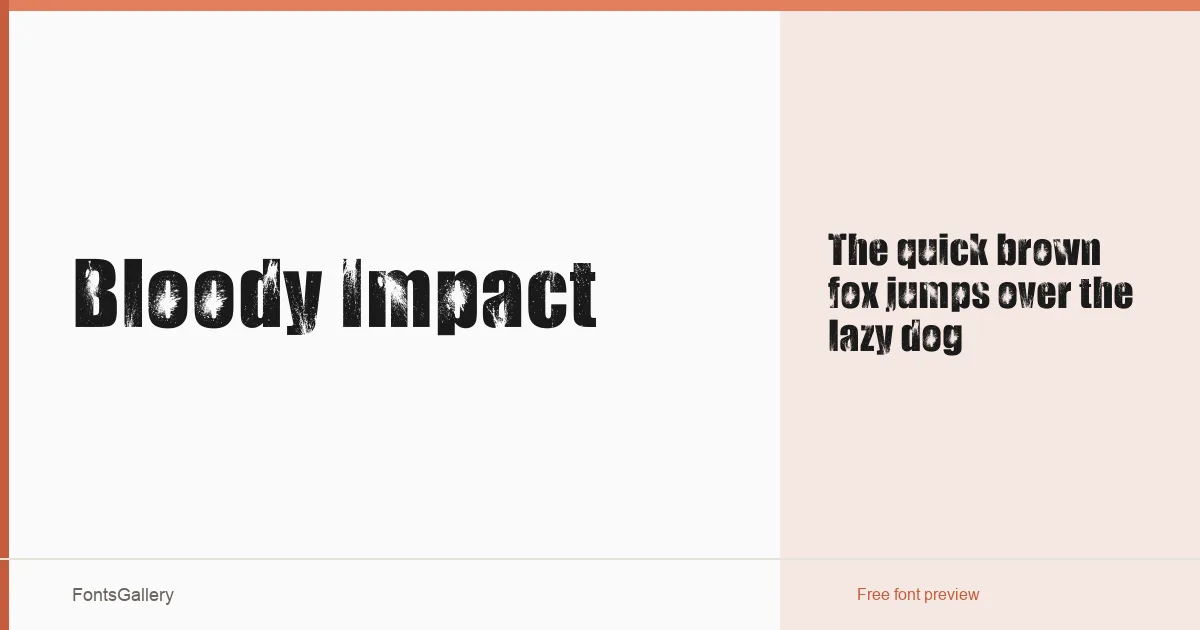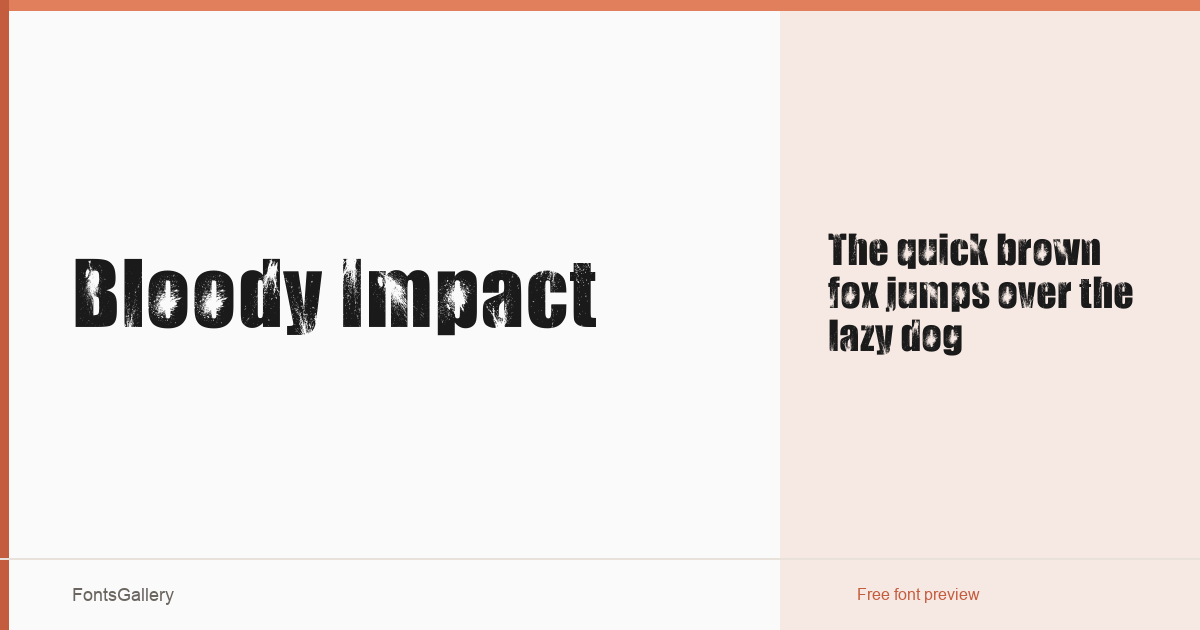
About Bloody Impact Font
Bloody Impact is a striking display typeface designed by Jason L. Arthur, crafted to make an immediate and powerful visual statement. With its bold, grunge-infused character, this font channels a raw, vintage energy that commands attention in any design context. Its rustic aesthetic gives it an authentic, worn quality that sets it apart from conventional display fonts.
The letterforms of Bloody Impact embody a rugged, grunge-driven boldness with a vintage sensibility that evokes a sense of aged authenticity. Each character carries a heavy weight and rough-edged texture, reinforcing its rustic and impactful personality. This combination of bold structure and distressed detailing makes it a visually arresting choice for designs that demand presence and attitude.
Bloody Impact is ideally suited for posters, headlines, branding projects, T-shirt designs, and signage where a strong, gritty visual impact is desired. Its bold vintage character makes it especially effective for projects that call for an edgy, authentic aesthetic. It pairs well with the clean neutrality of Helvetica or the complementary style of Aresink to create a balanced and dynamic typographic composition.